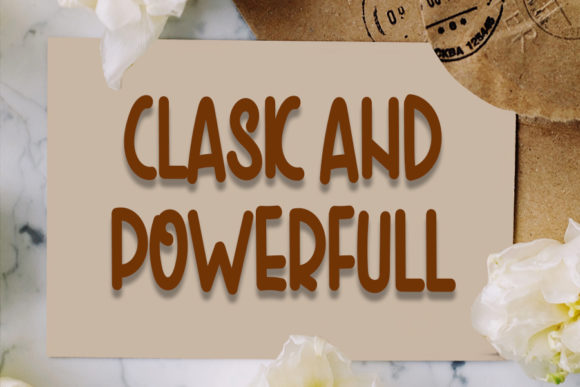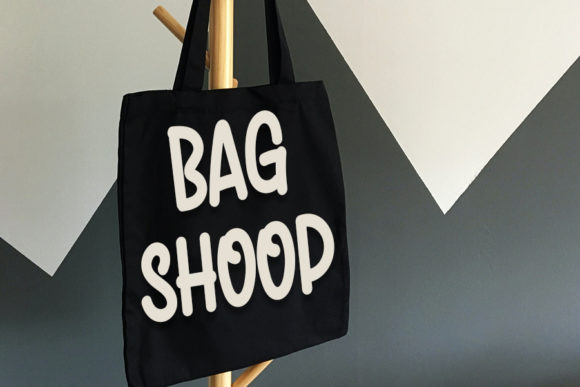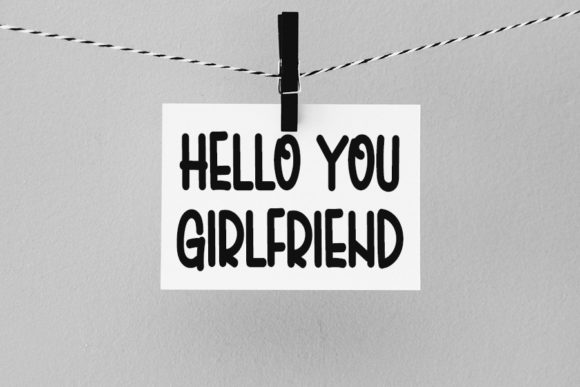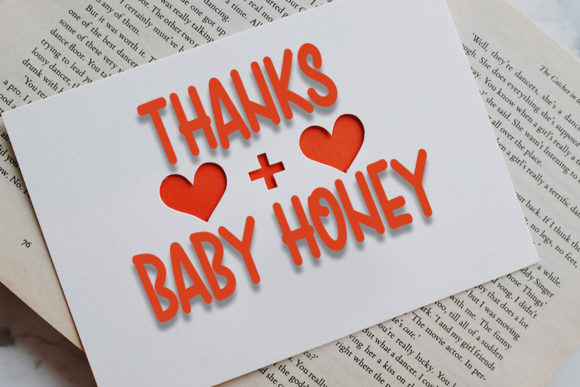
Datting Font: The Perfect Addition to Your Design Projects
Are you tired of using the same old fonts in your design projects? Look no further than Datting Font, a simple, all-round, and neat paint-brushed display font that is sure to elevate your designs to the next level. With its organic and clean style, Datting Font is incredibly flexible and can be used in a variety of projects, from crafting and DIY to graphic design and digital marketing.
What is Datting Font?
Datting Font is a unique and stylish font that is designed to mimic the look of hand-painted letters. Its organic and clean style makes it perfect for use in a variety of design projects, from logos and branding to packaging and advertising. The font is easy to read and understand, making it a great choice for designers who want to add a personal touch to their work.
Key Features of Datting Font
- Simple and All-Round: Datting Font is a versatile font that can be used in a variety of design projects. Its simple and clean style makes it easy to pair with other fonts and design elements.
- Neat Paint-Brushed Display: The font has a unique paint-brushed display style that gives it a hand-crafted look. This style is perfect for designers who want to add a personal touch to their work.
- Organic and Clean Style: Datting Font has an organic and clean style that makes it incredibly flexible. It can be used in a variety of projects, from digital marketing to crafting and DIY.
- Easy to Read and Understand: The font is easy to read and understand, making it a great choice for designers who want to communicate their message clearly.
Benefits of Using Datting Font
- Adds a Personal Touch: Datting Font adds a personal touch to your design projects, making them stand out from the crowd.
- Versatile: The font is versatile and can be used in a variety of projects, from logos and branding to packaging and advertising.
- Easy to Pair with Other Fonts: Datting Font is easy to pair with other fonts and design elements, making it a great choice for designers who want to create a cohesive look.
- Increases Readability: The font is easy to read and understand, making it a great choice for designers who want to communicate their message clearly.
How to Use Datting Font in Your Design Projects
- Use it as a Title Font: Datting Font is perfect for use as a title font in your design projects. Its unique and stylish style makes it a great choice for headings and titles.
- Pair it with Other Fonts: Datting Font is easy to pair with other fonts and design elements. Try pairing it with a clean and simple font for a cohesive look.
- Use it in Digital Marketing: Datting Font is a great choice for digital marketing projects, such as social media graphics and email marketing campaigns.
- Use it in Crafting and DIY: The font is also perfect for use in crafting and DIY projects, such as handmade cards and invitations.
In conclusion, Datting Font is a simple, all-round, and neat paint-brushed display font that is sure to elevate your design projects to the next level. Its organic and clean style makes it incredibly flexible and easy to use in a variety of projects. With its unique and stylish style, Datting Font is a great choice for designers who want to add a personal touch to their work. So why not give it a try and see the results for yourself?